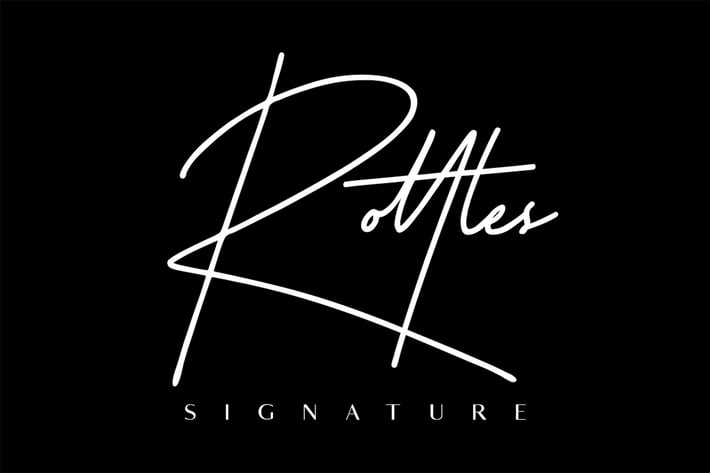
Rottles Signature Font
Give your designs an authentic handcrafted feel. “Rottles Signature Font” is perfectly suited to stationery, logos and much more.